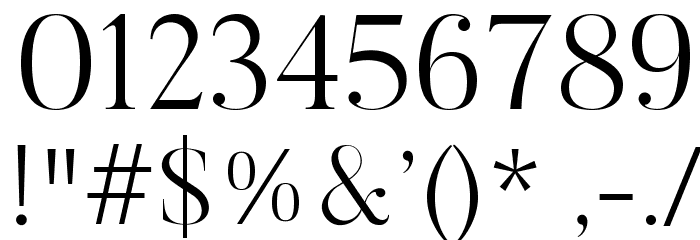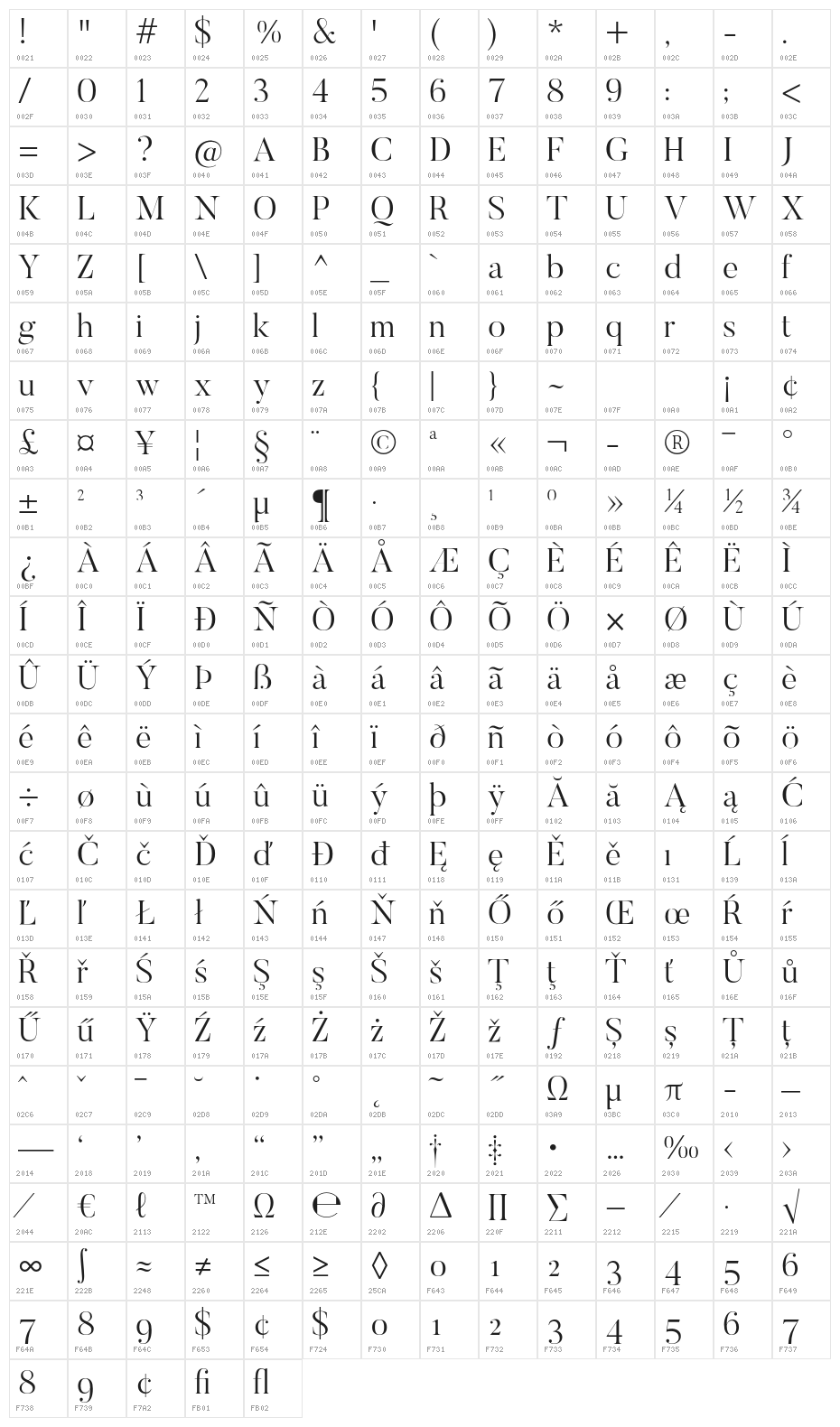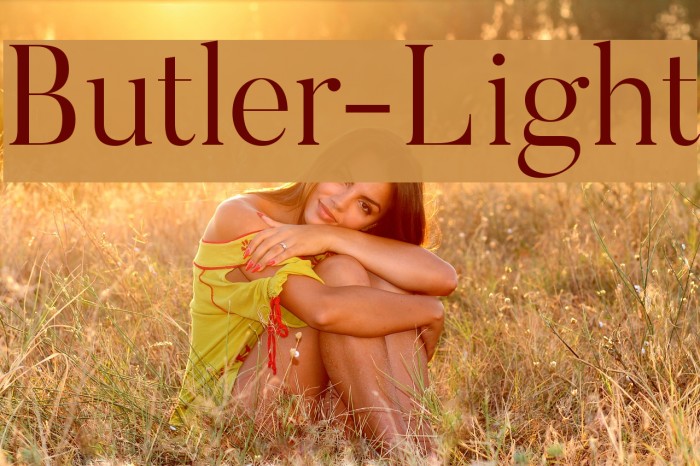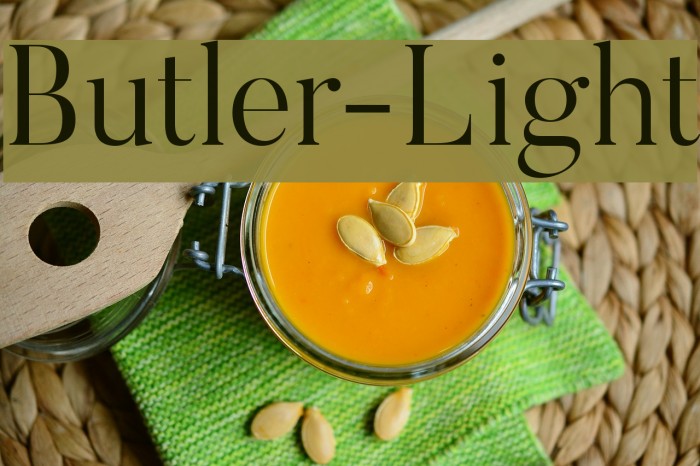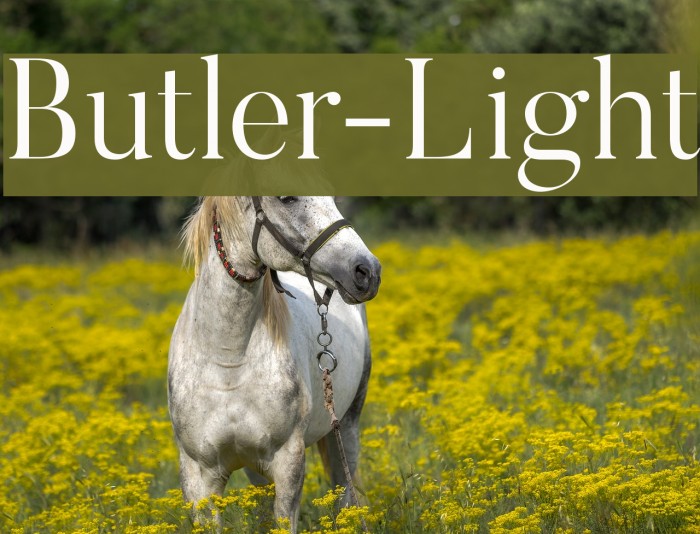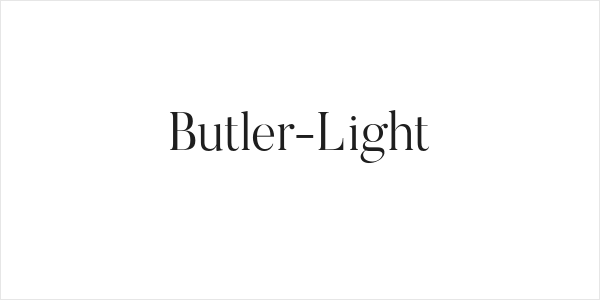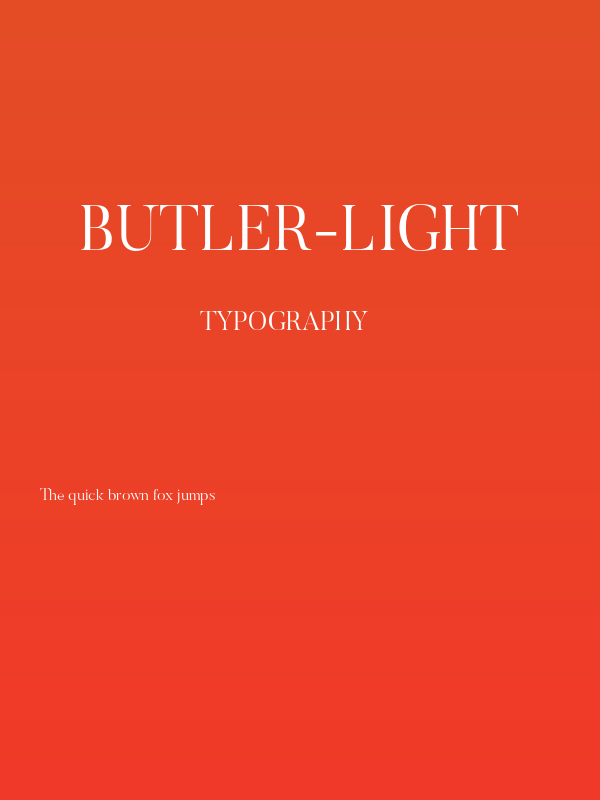
Butler-Light Font
Butler-Light Description
This font exhibits a refined and elegant serif style with a modern twist. The uppercase letters are tall and stately, featuring sharp serifs and a balanced proportion that conveys a sense of sophistication. The lowercase letters maintain a consistent style, with smooth curves and a slight contrast in stroke thickness that adds to the overall elegance. The numerals are clear and distinct, matching the style of the alphabet with their clean lines and subtle serifs. Special characters are well-integrated, maintaining the font's cohesive aesthetic. This font is versatile, suitable for both digital and print media, and can enhance the visual appeal of any project with its timeless and polished appearance.
| Proposed Projects | Ideal for luxury branding, editorial design, wedding invitations, and high-end product packaging. |